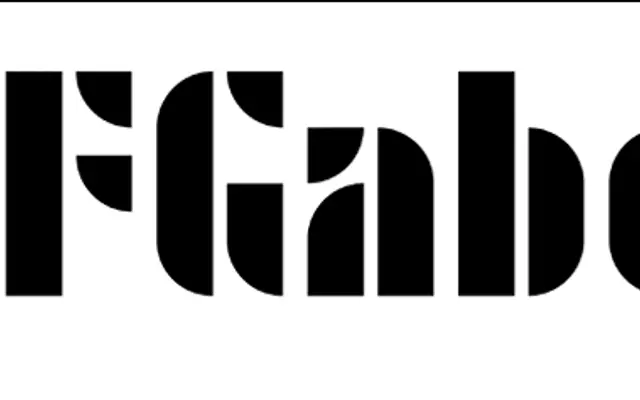
Five Typefaces
Muirmcneil · 2017
A stencil type system built from geometric segments and internal void spaces, referencing Josef Albers, Compacta and Walter Haettenschweiler's compressed grotesques.
First published in 2017 and extensively revised in 2021, Five comes in three contours, two widths, two optical weights and positive and negative versions. Rather than assembling glyphs from minimal strokes, the system inverts convention by constructing alphabets around a grid of internal white-line spaces, producing dense, imposing letterforms. The lower case division into two or three horizontal sections follows principles similar to Walter Ballmer's 1971 Olivetti lettering, allowing stroke proportions to modulate more naturally than most constructed types permit.
A stencil type system built from basic geometric segments with internal void spaces reduced to thin white lines; references compressed rectilinear sans serifs and constructed alphabets, placing it firmly in the display/geometric stencil category.